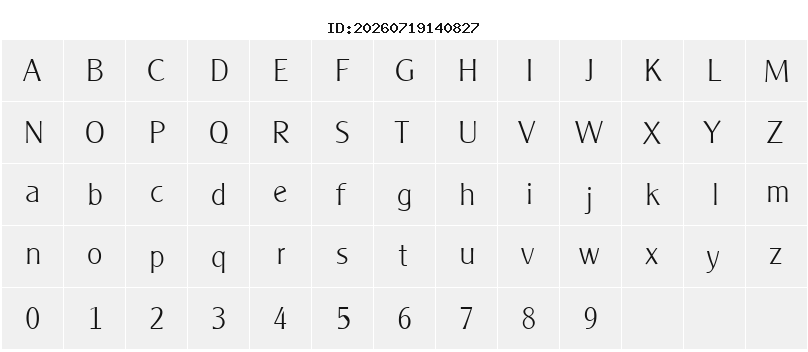
About Clearly Gothic Light.ttf
Clearly Gothic Light.ttf is a modern, elegant sans-serif font designed for ultimate readability and visual harmony. Perfect for branding, headlines, web design, and print materials.